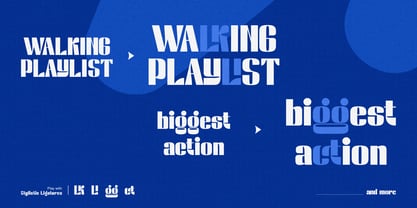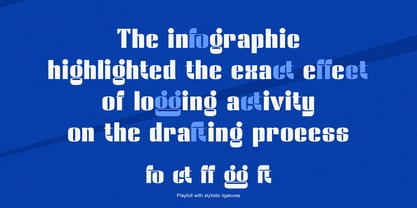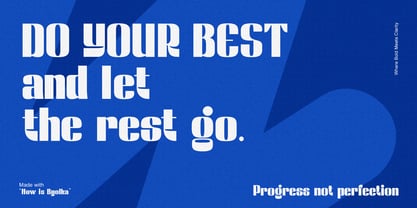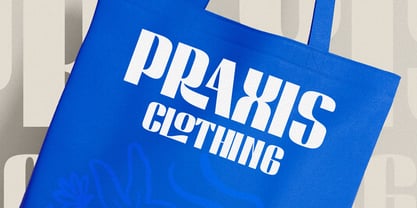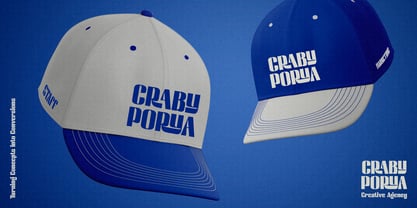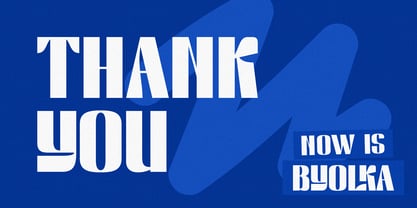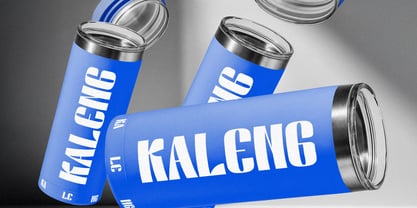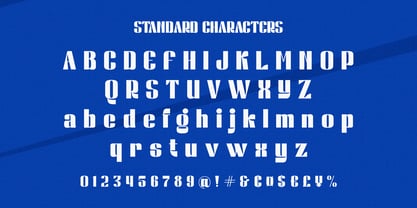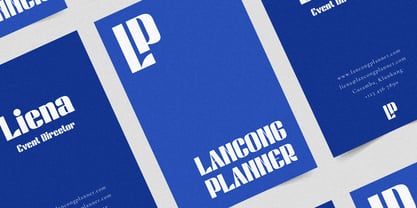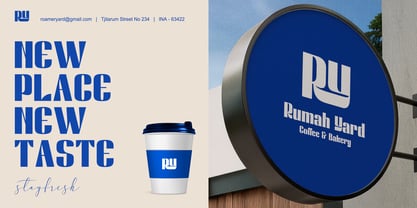
Now is Byolka
by Ekahermawan
The Now is Byolka Font Family was designed by Putu Eka Hermawan and published by Ekahermawan. Now is Byolka contains 1 styles. More about this family
NOW IS BYOLKA — Make Your Words Bold and Unforgettable! Meet NOW IS BYOLKA, a bold, modern display font made to turn every design into a statement. With its eye-catching curves, strong shapes, and stylish ligatures, NOW IS BYOLKA brings instant confidence and creativity to your work. Perfect for logos, posters, headlines, packaging, and social media, this font makes sure your message stands out loud and proud. Whether you’re building a bold brand or crafting stylish merch, NOW IS BYOLKA adds power and personality to every letter. Why You’ll Love It: Bold & confident — designed to grab attention instantly, Unique letter shapes with stylish ligatures, Multilingual support, Easy to use, looks amazing in both large and short text, Perfect for posters, branding, ads, apparel, and more! Bring your designs to life and make them unforgettable with NOW IS BYOLKA — where bold meets beautiful.
Designers: Putu Eka Hermawan
Foundry: Ekahermawan